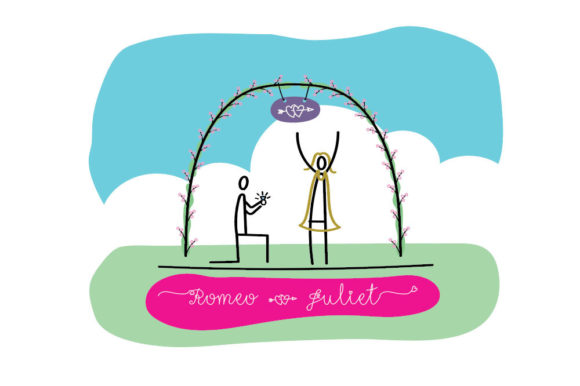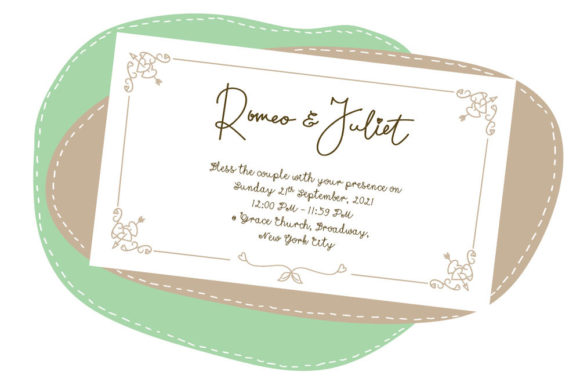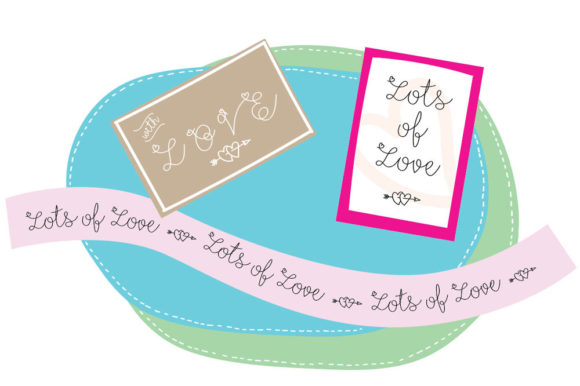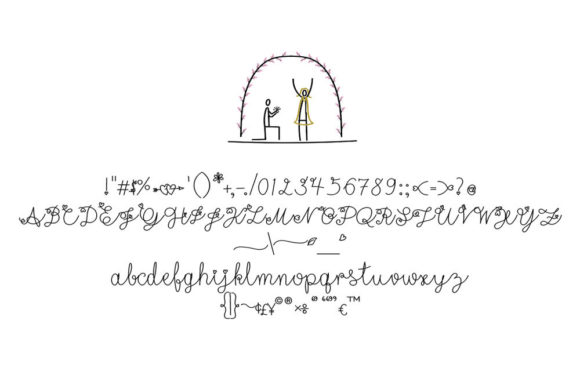
Introduction to Loveletter Font
Loveletter is a sweet and romantic handwritten font.
Add this thin lettered and delicate font to your library and employ it for both personal or formal creations .
Key Features of Loveletter Font
Why Choose Loveletter Font?